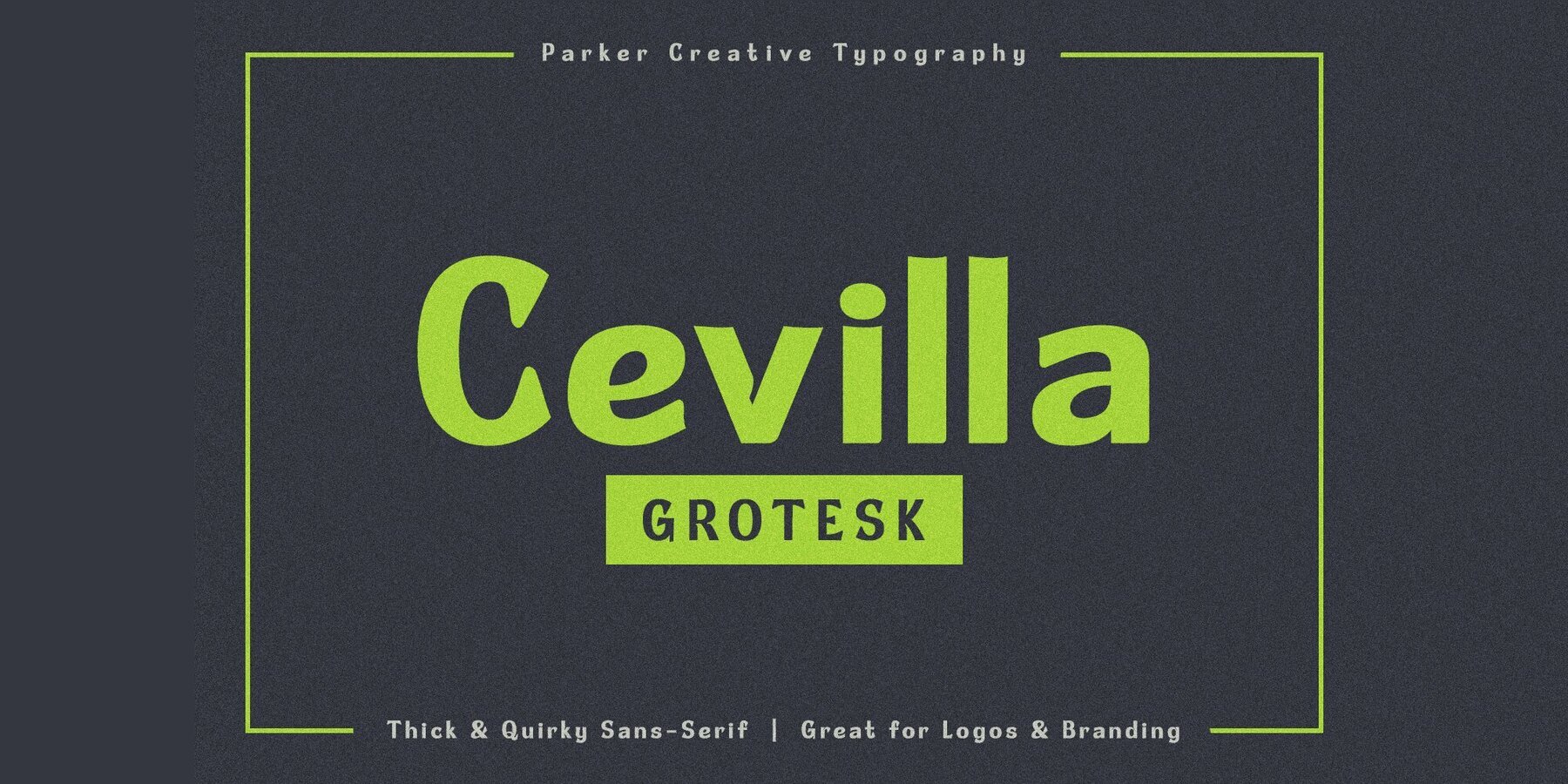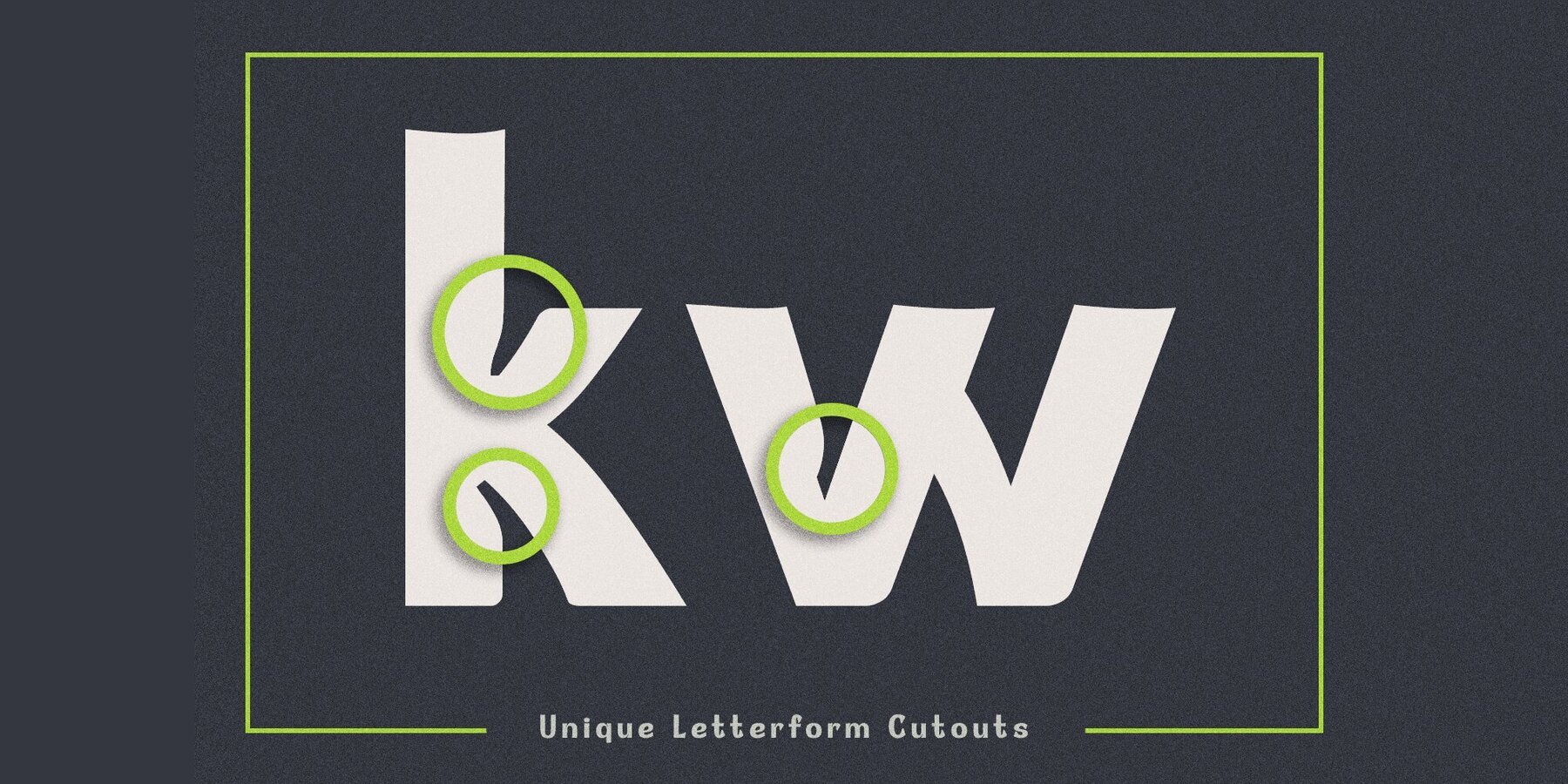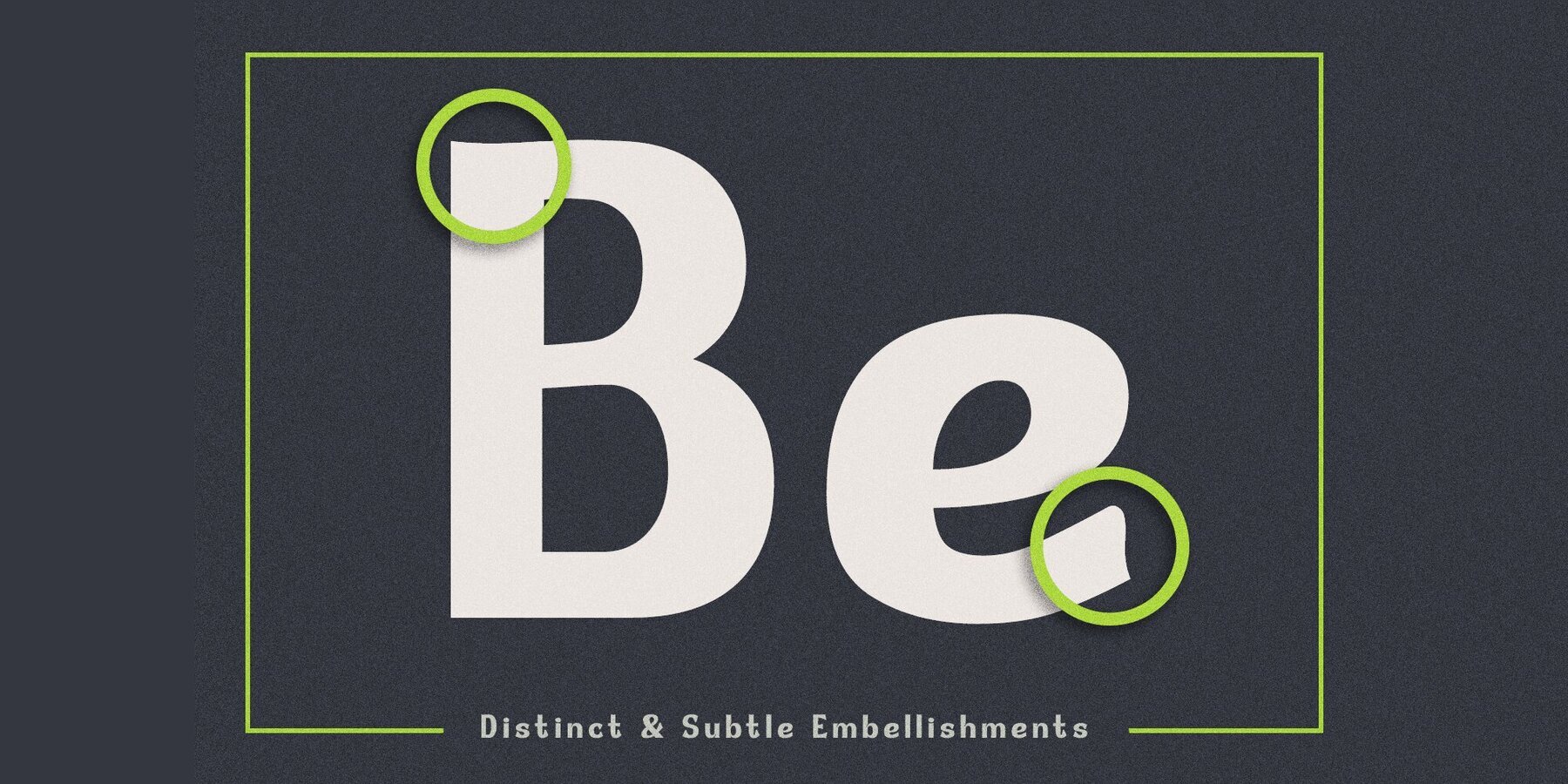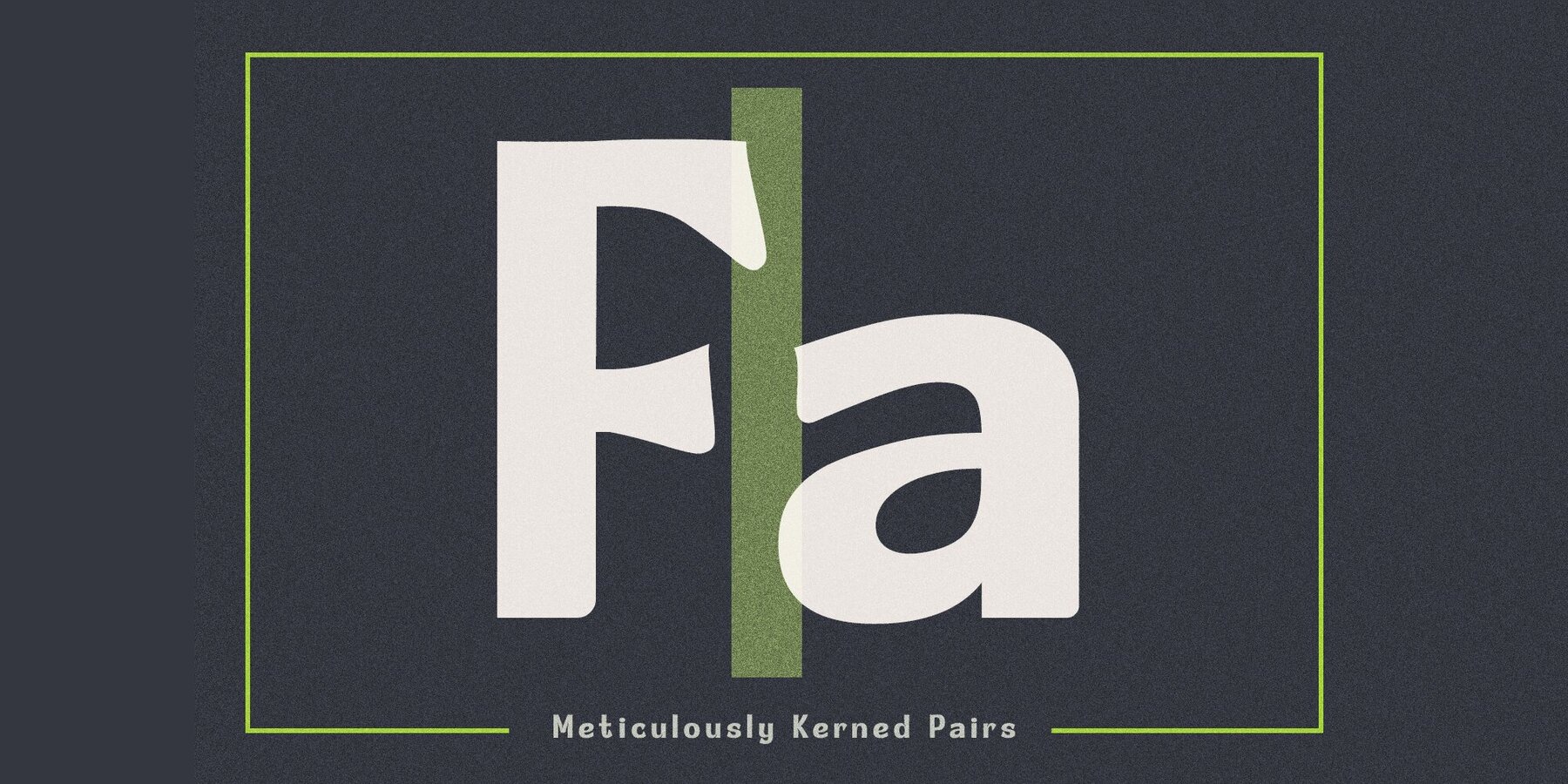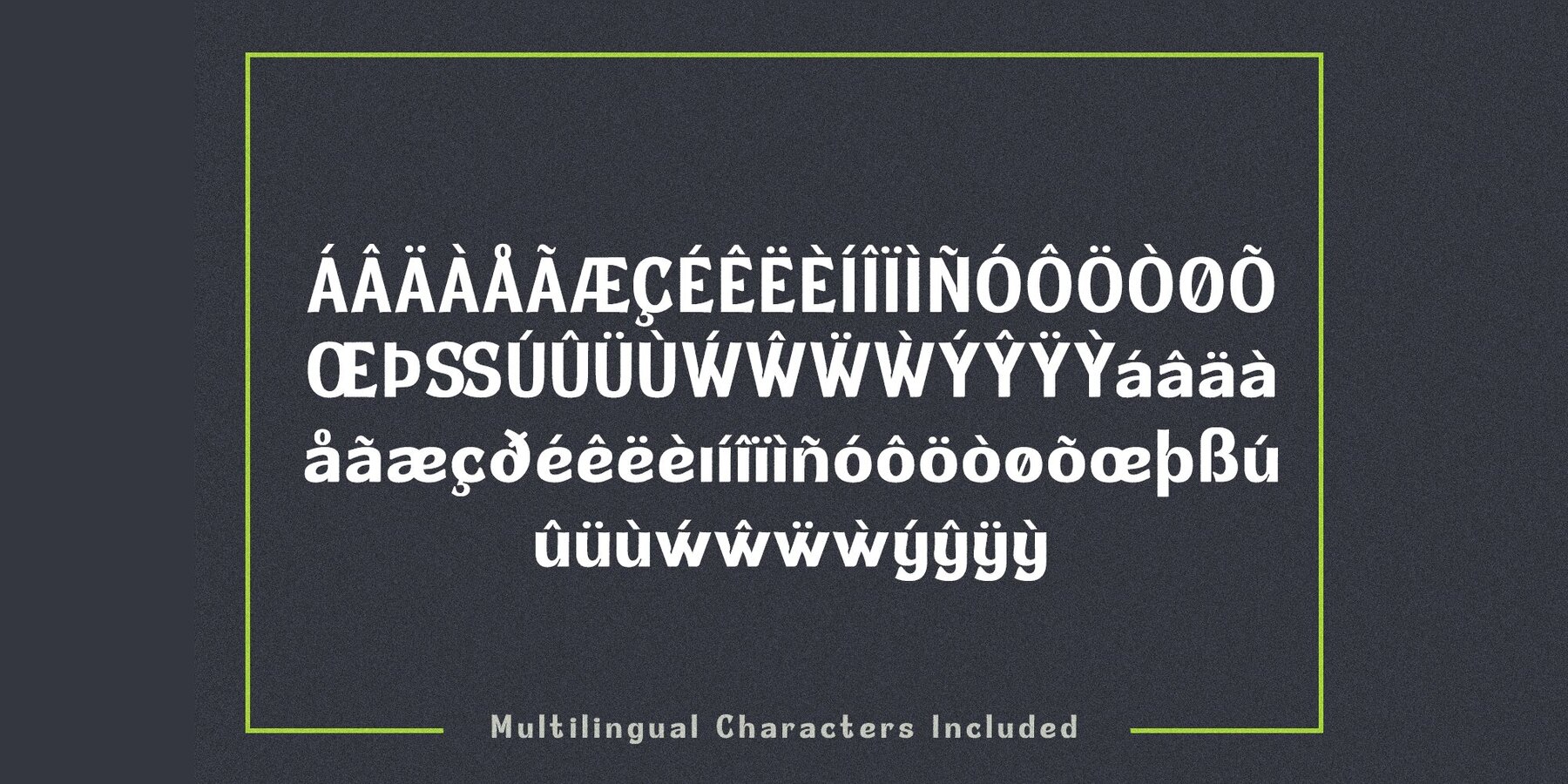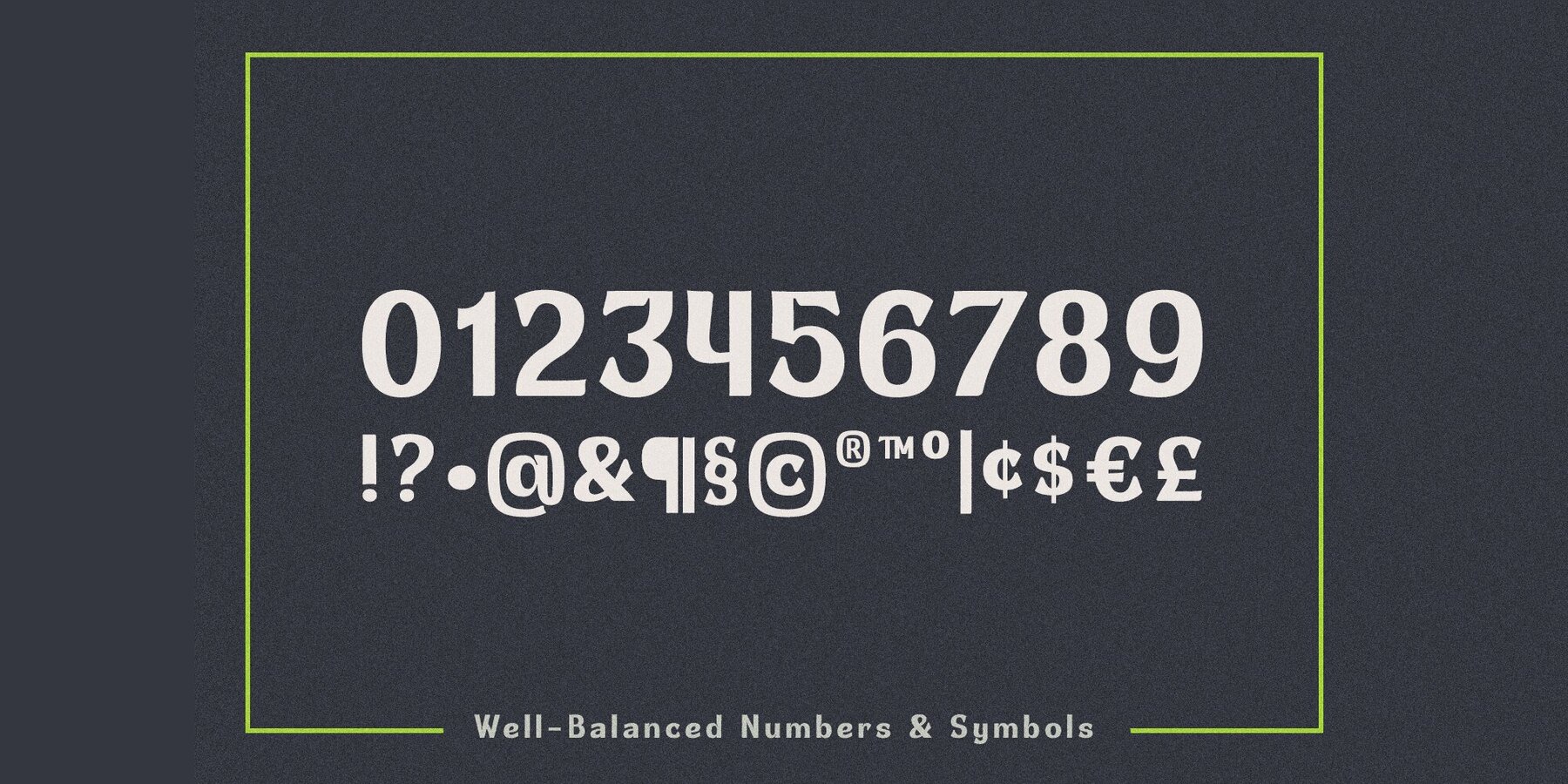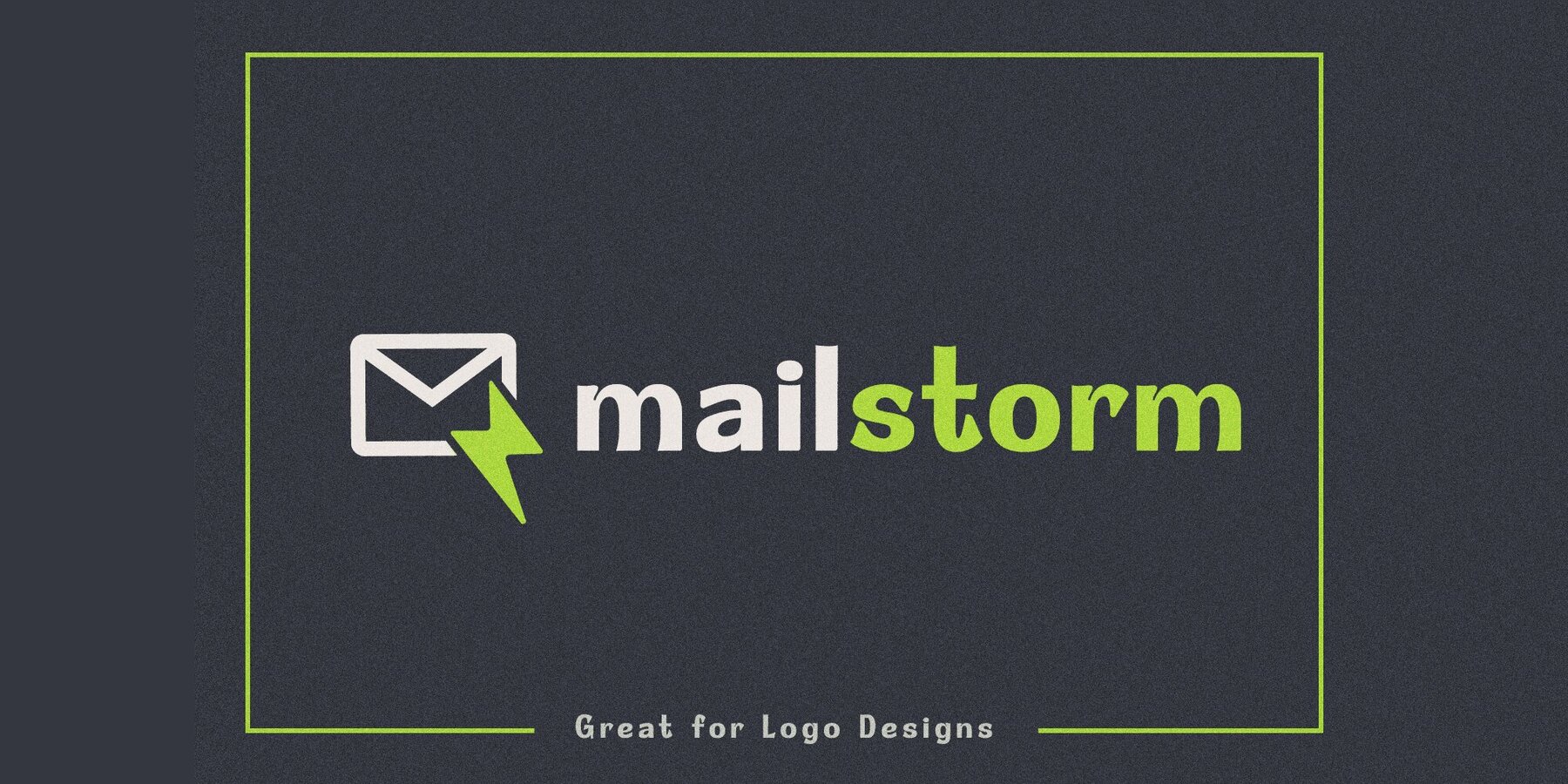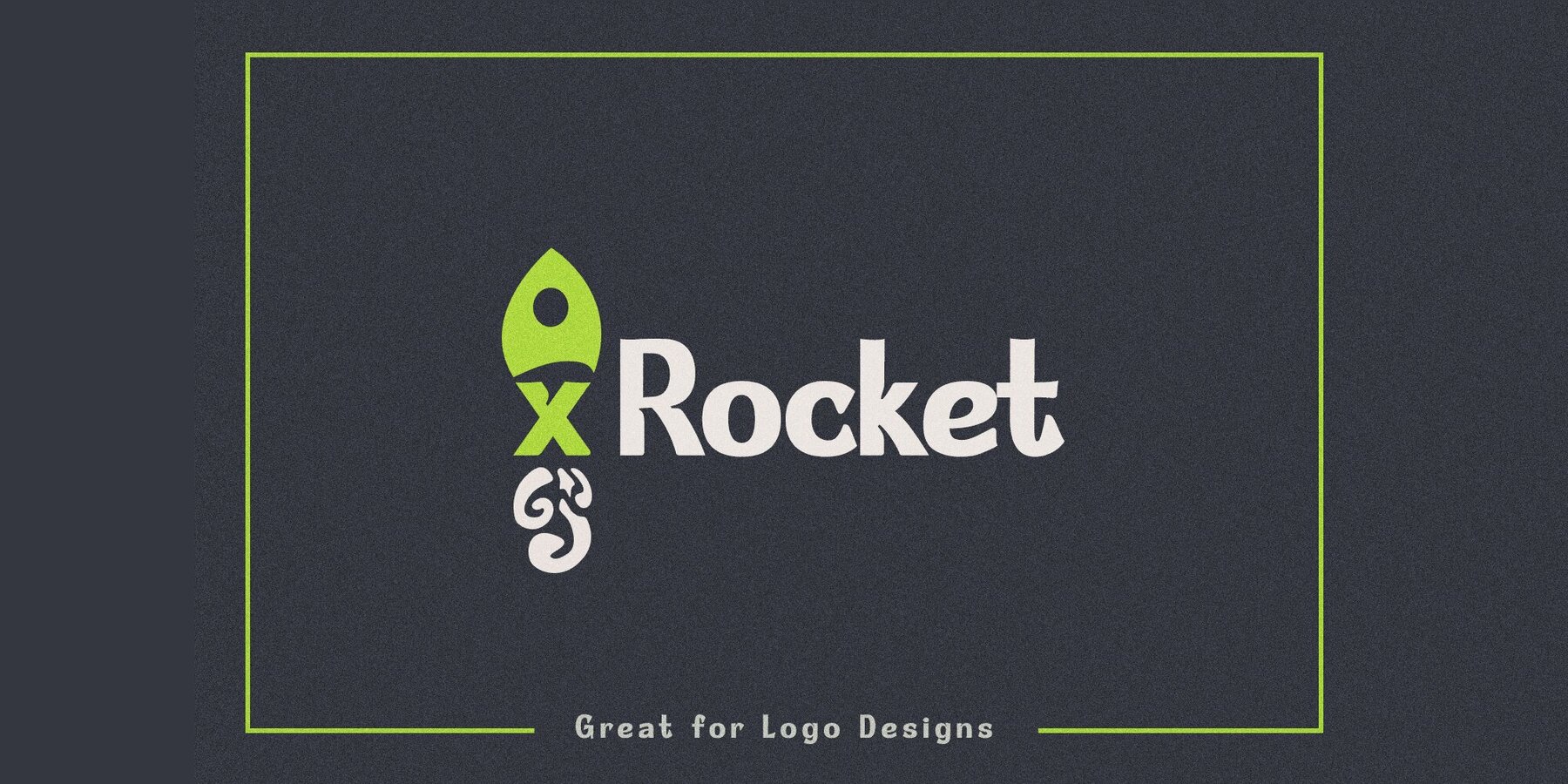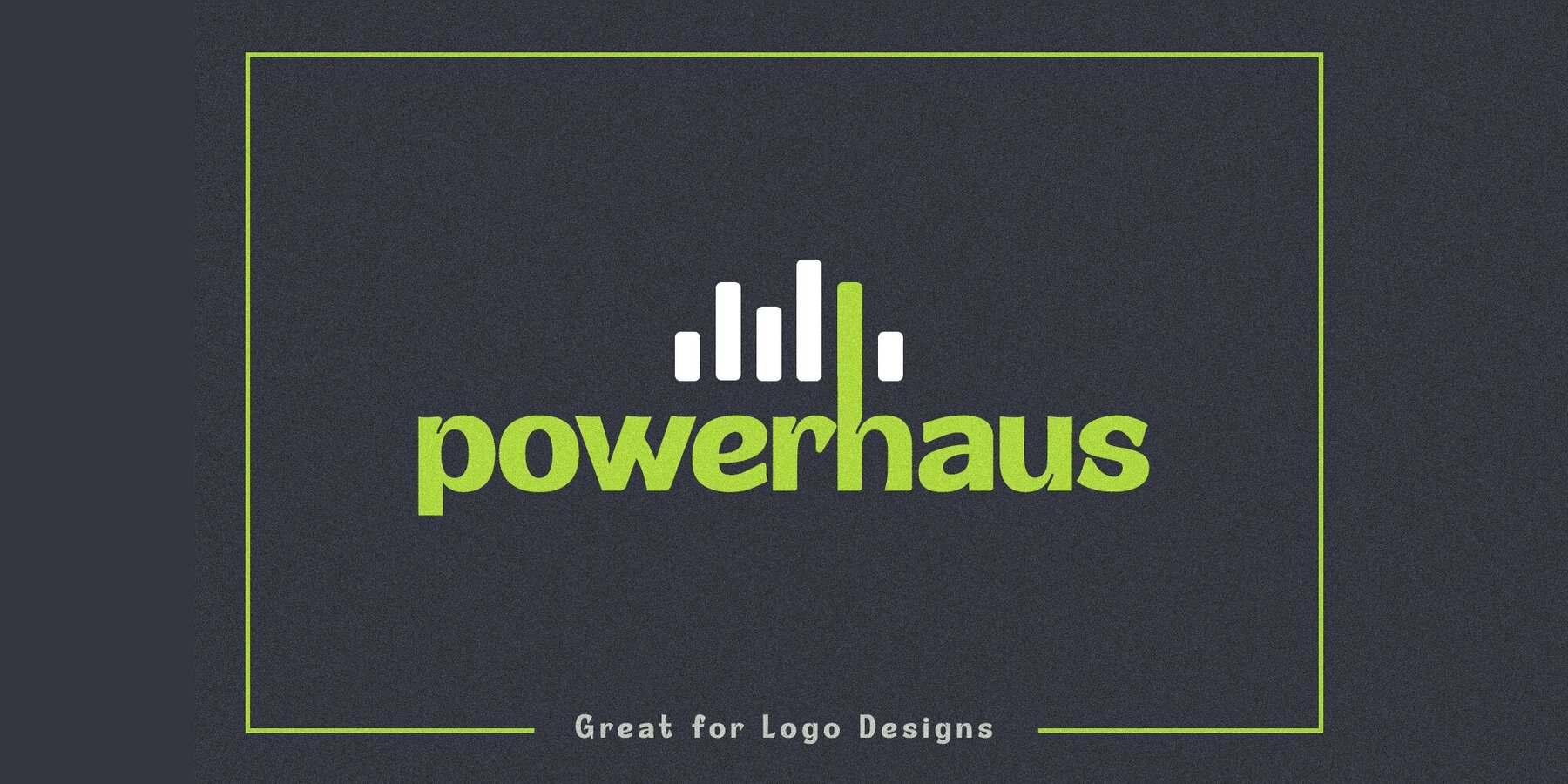
Cevilla Grotesk Font
Cevilla Grotesk Regular
Cevilla Grotesk stands out as a robust, quirky sans serif font, brimming with personality. Crafted for branding and logo endeavors, this font offers a unique aesthetic enhanced by its distinctive embellishments and stylized cutouts across the letterforms. Incorporate Cevilla Grotesk in your next project to infuse a fresh and striking look. Ideal for use in logos, websites, magazines, and posters, it also enhances emails and social media posts. This versatile font moves beyond conventional options, allowing your designs to captivate with bold flair.Cevilla Grotesk: A Bold Sans Serif with Distinctive Charm